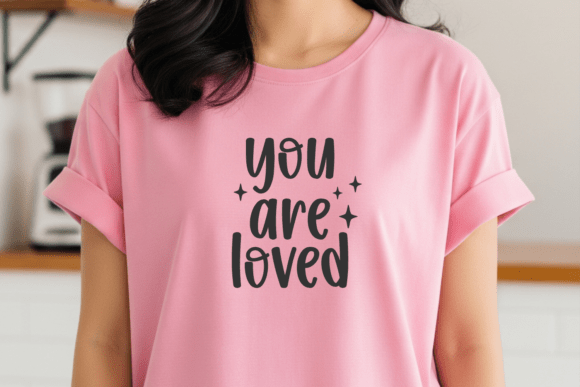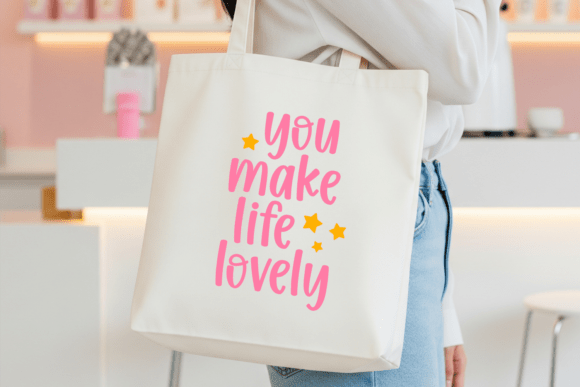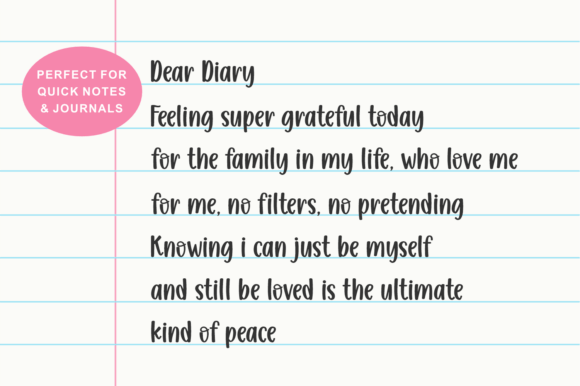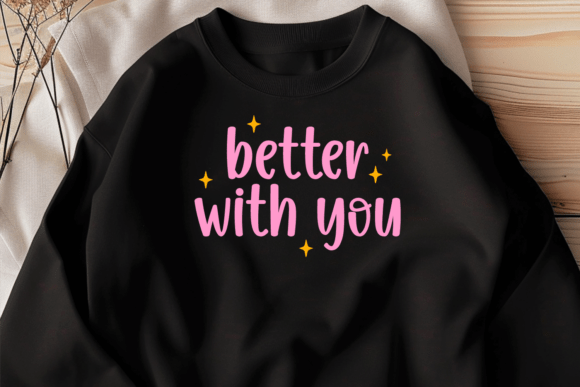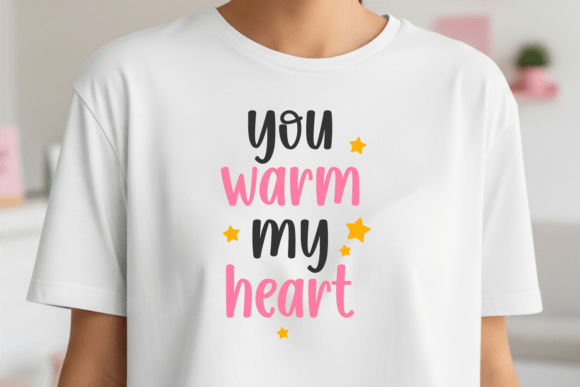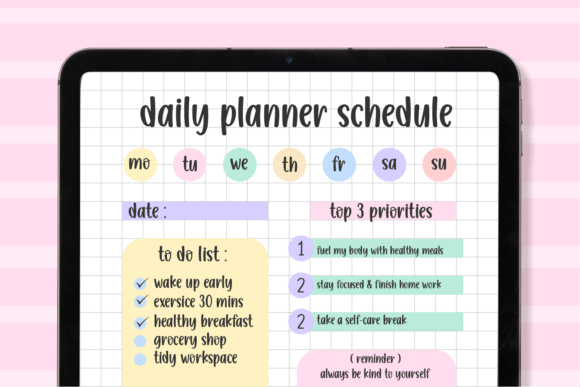
Introduction to Farmhouse Valentine’s Font
Experience the charm of countryside simplicity woven with tender sentiments in the Farmhouse Valentine font.
This handwriting-inspired typography design embodies the comforting and familiar appeal of farmhouse decor, elevated by a tasteful touch of romance Crafted with a seamless fusion of natural rhythm and clean lines, it strikes the ideal balance between character and clarity.
Key Features of Farmhouse Valentine’s Font
Why Choose Farmhouse Valentine’s Font?
Farmhouse Valentine’s Font offers exceptional quality and versatility, making it a valuable addition to your design toolkit. Whether you’re creating for personal projects or commercial use, Farmhouse Valentine’s Font delivers professional results.